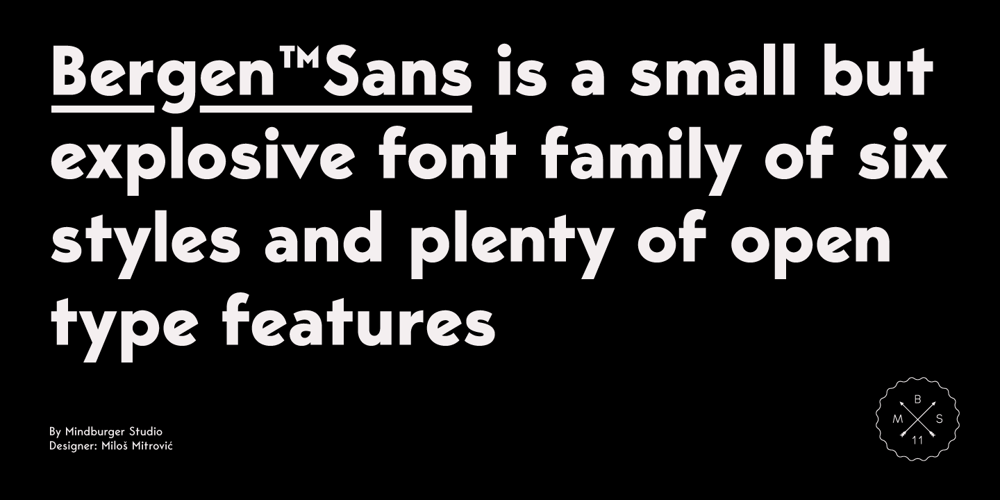
Bergen Sans Font Family was designed by Milos Mitrovic and published by Mindburger Studio. Bergen Sans contains 6 styles and family package options. Bergen Sans is a contemporary sans serif font family of 6 fonts. Carrying clean and stylized Scandinavian geometry, partnered with explosive post Bauhaus type aesthetics, Bergen Sans is perfect companion in any designer’s ‘survival’ kit. While being a small font family it has unlimited capabilities and plenty of Open Type features for highly professional use. Bergen Sans also includes Extended Latin, Cyrillic (including Bulgarian alternates) and Greek language support.